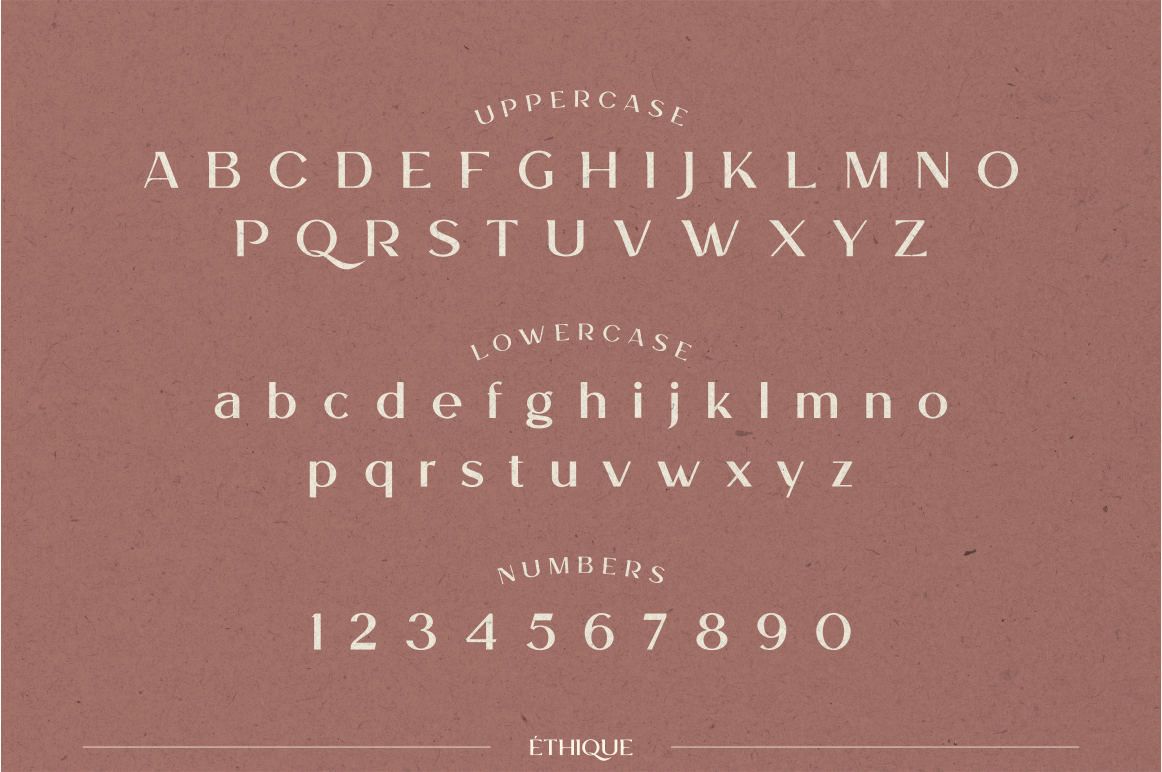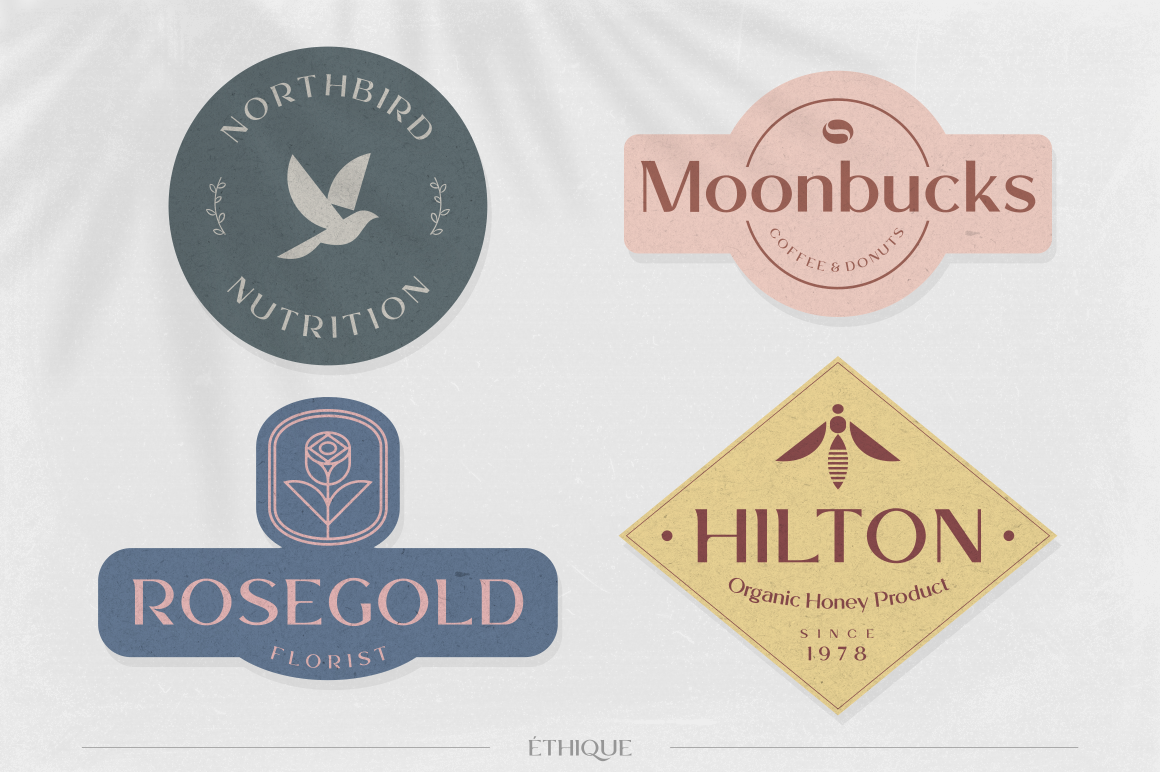
ETHIQUE is a minimalist luxury and gorgeous font that is both classically elegant and inherently modern. Create unique word mark logo, beautiful wedding invitations, use it as an elegant solution for your next magazine layout, or choose ETHIQUE for any graphics that require a sleek look with a elegant flair. ETHIQUE Font features an unique typeface stylistic set which when use to some of the Uppercase, lowercase characters and multilingual as well.